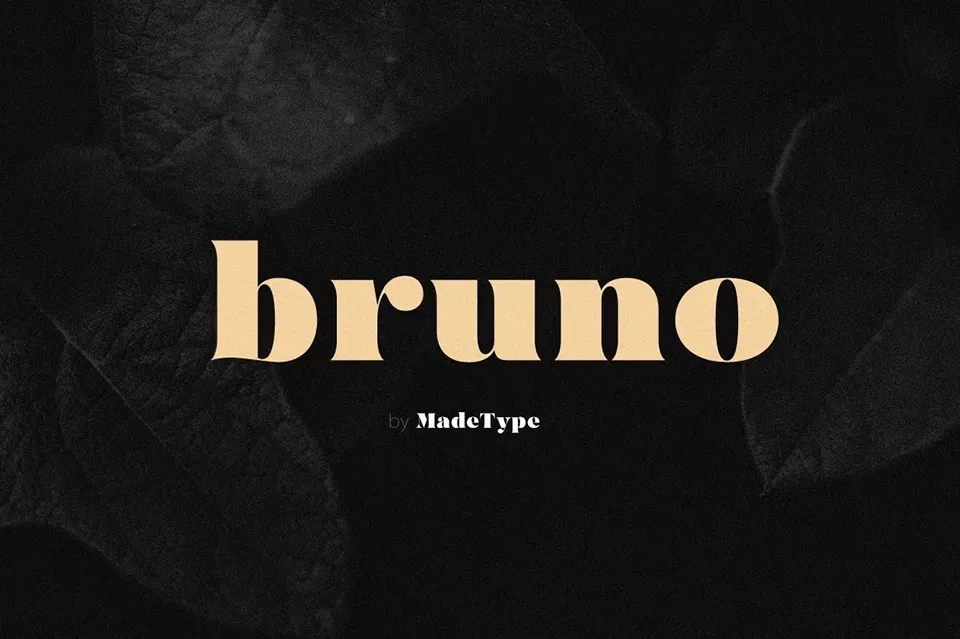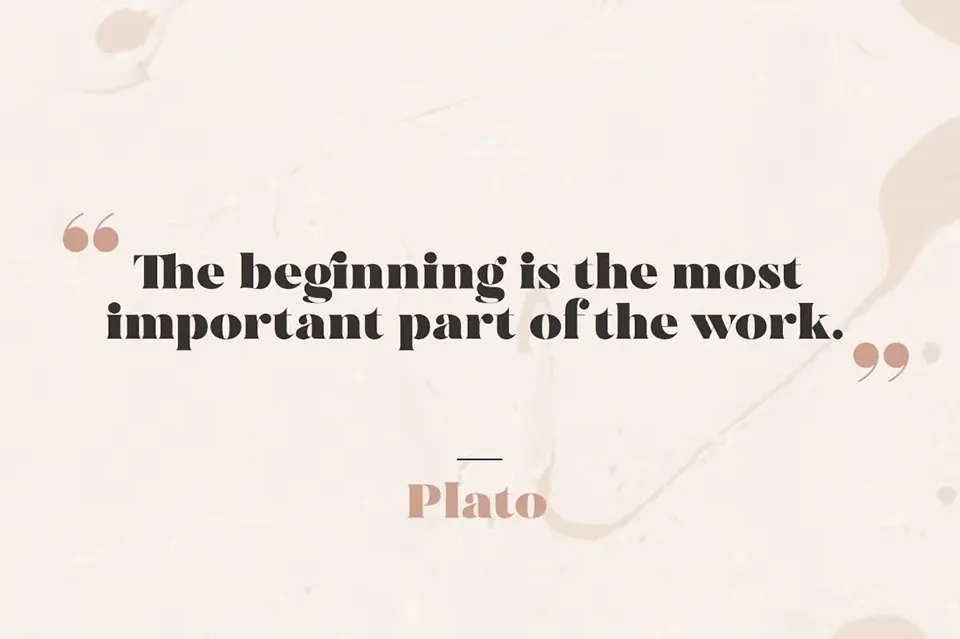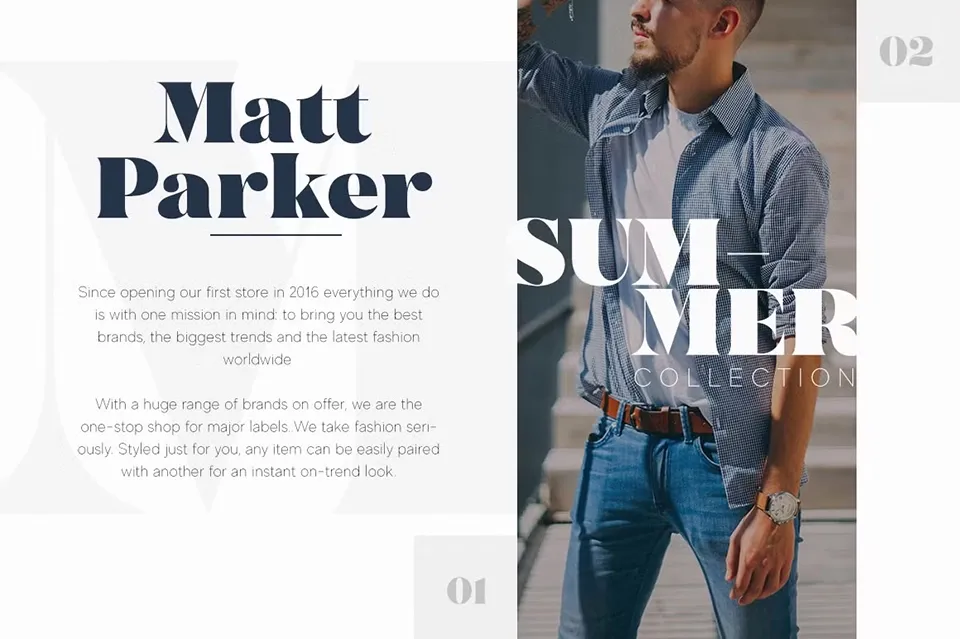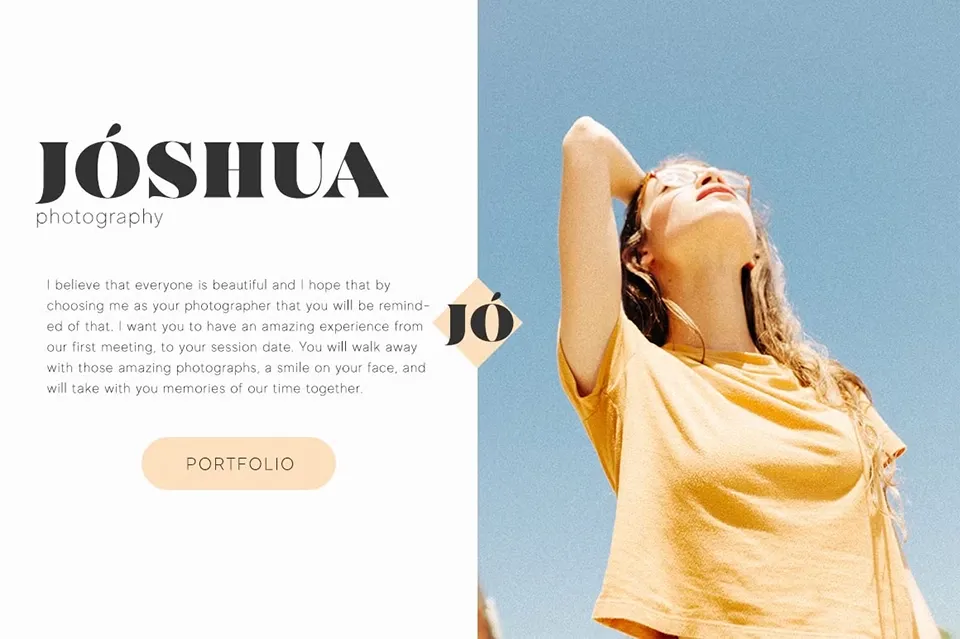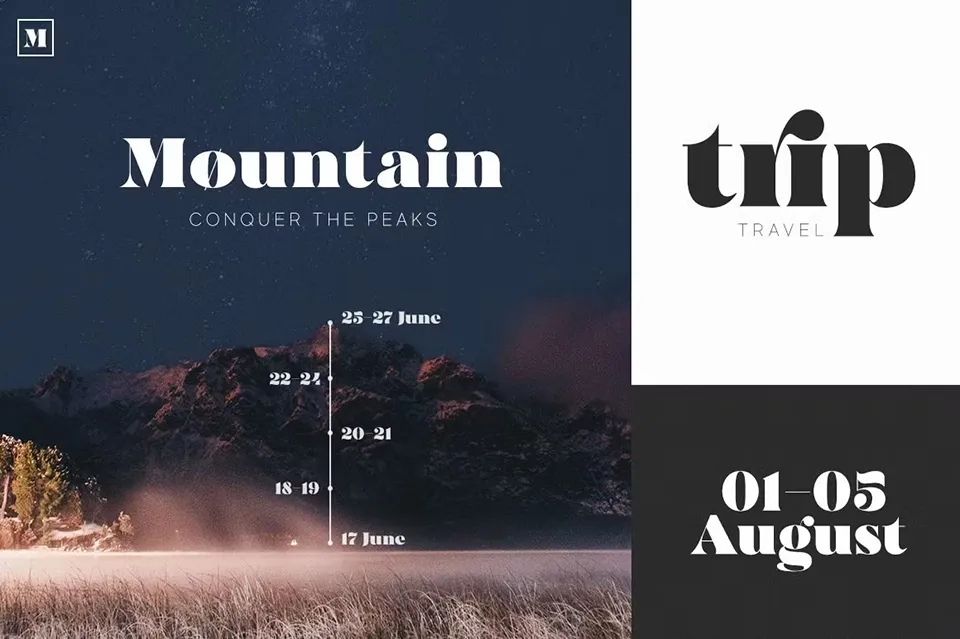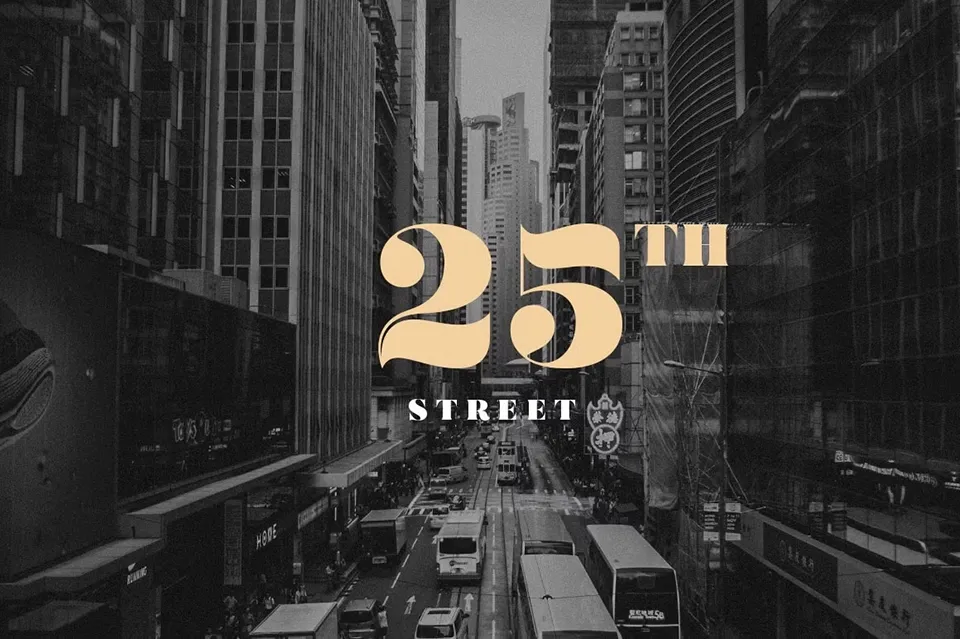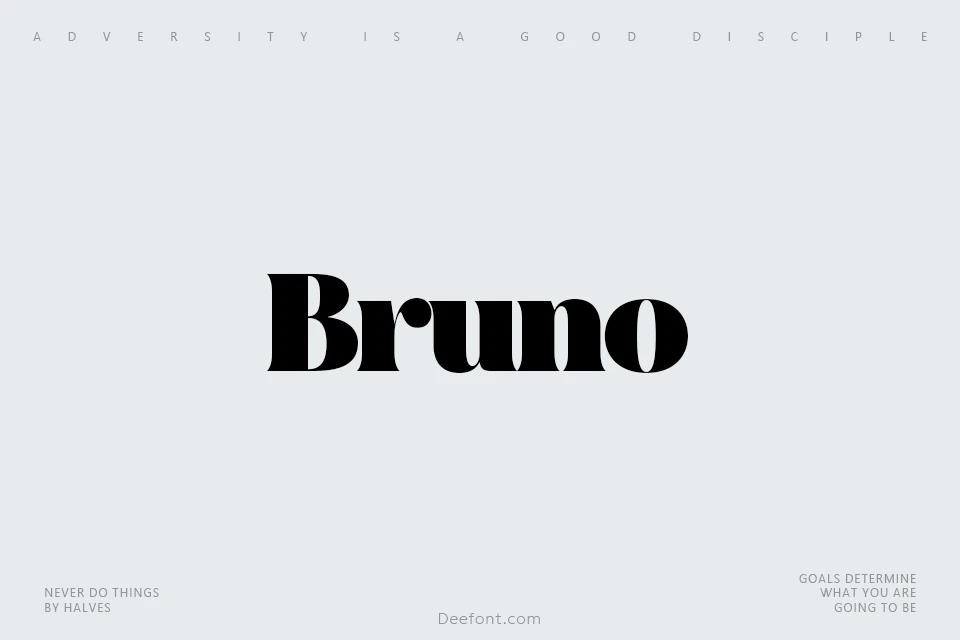
MADE Bruno Font
MADE Bruno Font is a bold and modern serif typeface that combines classic elegance with a contemporary edge. Designed for versatility, this font is perfect for branding, editorial layouts, packaging, and display purposes. Its striking letterforms feature clean lines and subtle contrasts, creating a sophisticated yet approachable aesthetic. MADE Bruno Font excels in both large headlines and detailed text, offering excellent readability and visual impact. Whether used for luxury designs or creative projects, this typeface adds a refined touch to your work. Elevate your creations with the timeless charm and bold presence of MADE Bruno Font!